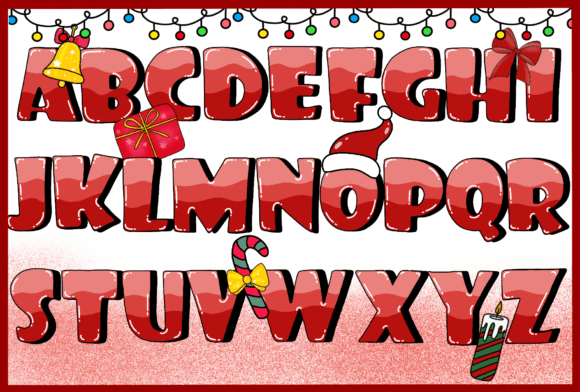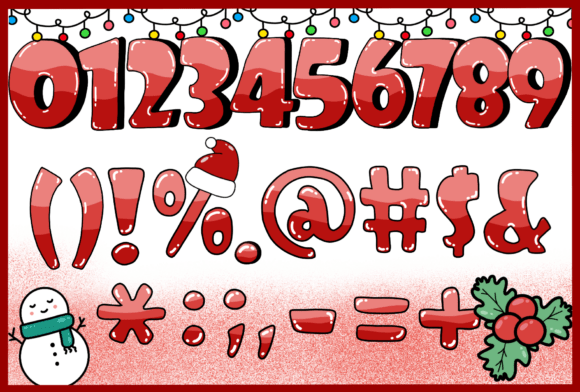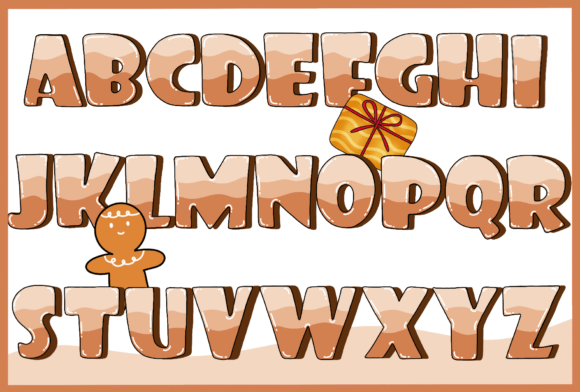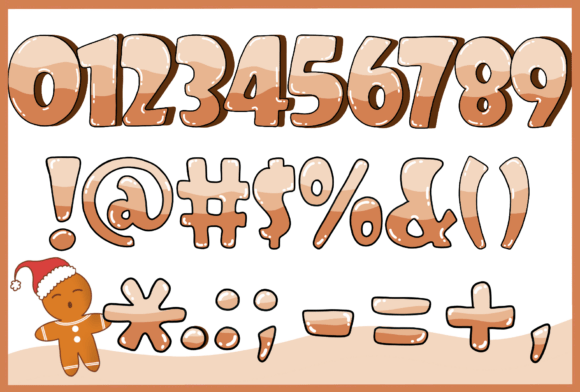
Gifts for Christmas 1 Font: A Festive and Fun Way to Add Holiday Cheer to Your Designs
Are you looking for a unique and playful way to add some holiday cheer to your designs? Look no further than the Gifts for Christmas 1 Font! This festive font is perfect for designers, crafters, and anyone looking to add a touch of Christmas magic to their projects. In this article, we’ll take a closer look at the Gifts for Christmas 1 Font and explore its features, benefits, and uses.
What is the Gifts for Christmas 1 Font?
The Gifts for Christmas 1 Font is a decorative color typeface that transforms titles and numbers into cheerful, rounded, and brightly decorated holiday illustrations. Each character is a self-contained, bubbly, three-dimensional element, lavishly adorned with traditional Christmas motifs like bells, snowmen, trees, and bows. The font is available in various formats, including PNG, OTF, and TTF, making it compatible with a wide range of design software and devices.
Key Features of the Gifts for Christmas 1 Font
- 4 Colors: The font comes in 4 different colors, allowing you to add a pop of color to your designs.
- Illustrative Style: The font features a unique illustrative style, with each character designed as a self-contained, 3D element.
- Traditional Christmas Motifs: The font is adorned with traditional Christmas motifs, such as bells, snowmen, trees, and bows.
Benefits of Using the Gifts for Christmas 1 Font
The Gifts for Christmas 1 Font offers a range of benefits for designers, crafters, and anyone looking to add a touch of holiday cheer to their projects. Some of the benefits include:
- Unique and Playful: The font adds a unique and playful touch to your designs, making them stand out from the crowd.
- Versatile: The font can be used for a wide range of projects, from Christmas headers and banners to children’s book titles and personalized gifts.
- High-Impact: The font is perfect for creating high-impact display elements that grab attention and add holiday cheer to your designs.
Uses for the Gifts for Christmas 1 Font
The Gifts for Christmas 1 Font is perfect for a wide range of projects, including:
- Christmas Headers and Banners: Use the font to create eye-catching Christmas headers and banners that add holiday cheer to your website, social media, or marketing materials.
- Children’s Book Titles: The font is perfect for creating adorable children’s book titles that add a touch of whimsy and fun to your storybooks.
- Personalized Gifts: Use the font to create personalized gifts, such as customized mugs, t-shirts, and cards, that add a special touch to your holiday gifts.
- Seasonal Classroom Decor: The font is perfect for creating festive classroom decor, such as holiday banners and decorations, that add a touch of holiday cheer to your classroom.
The Gifts for Christmas 1 Font is a fun and festive way to add holiday cheer to your designs. With its unique illustrative style, traditional Christmas motifs, and easy-to-use format, this font is perfect for designers, crafters, and anyone looking to add a touch of Christmas magic to their projects. Whether you’re creating Christmas headers and banners, children’s book titles, personalized gifts, or seasonal classroom decor, the Gifts for Christmas 1 Font is sure to bring joy and festivity to your designs.